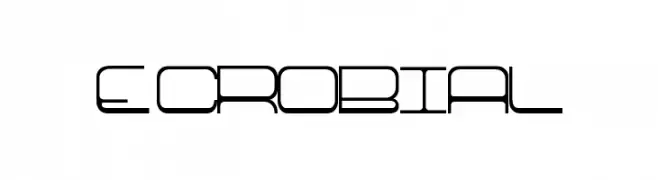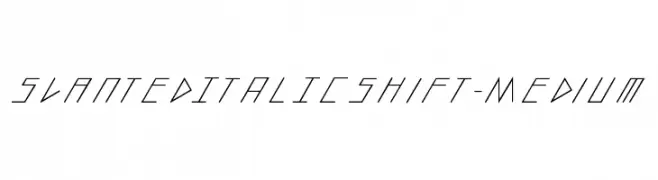
A bold, rounded font with a playful and chunky style.
A bold pictogram font of human heads with conceptual icons.
A bold, rounded font with a modern and geometric style.
Bold, angular, and dynamic font with a sporty, modern feel.
A modern, geometric typeface with uniform stroke width and high legibility.
A bold, playful font with blocky letters and unique cut-out shapes.
A slanted, italicized font with sharp angles and a modern, geometric style.